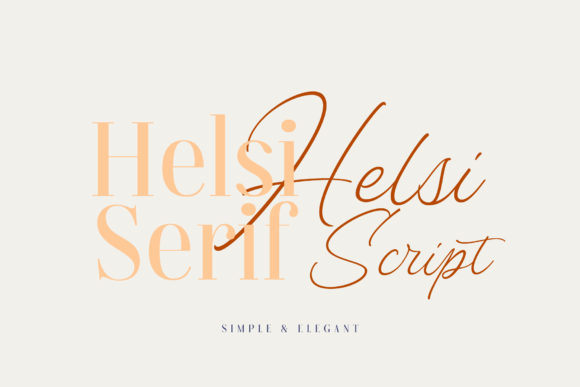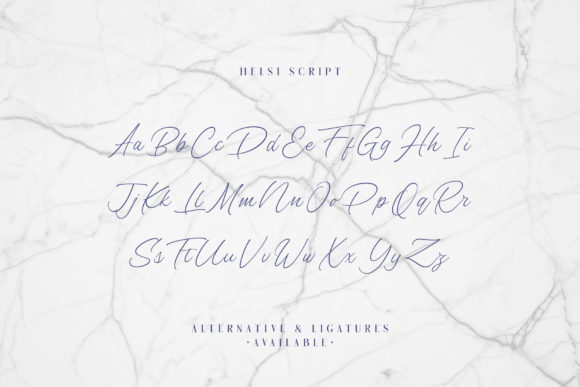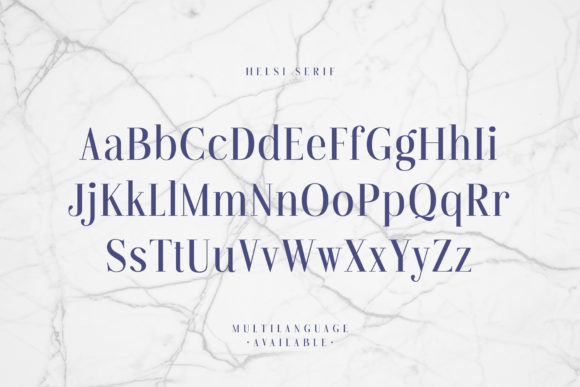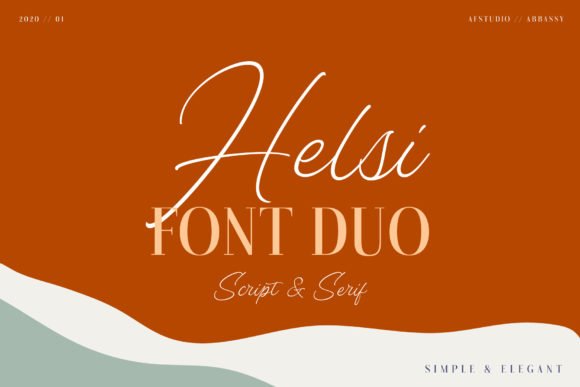
Introduction to Helsi Font
Helsi duo is a match made in heaven.
Combining the script and the serif font will give your next design an elegant and romantic feel .
Helsi Font offers exceptional quality and versatility, making it a valuable addition to your design toolkit. Whether you’re creating for personal projects or commercial use, Helsi Font delivers professional results.